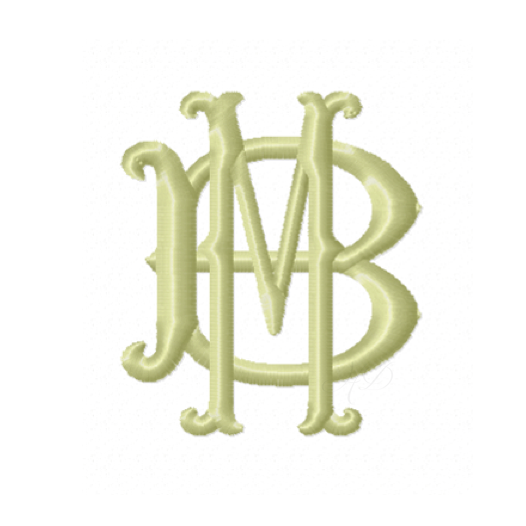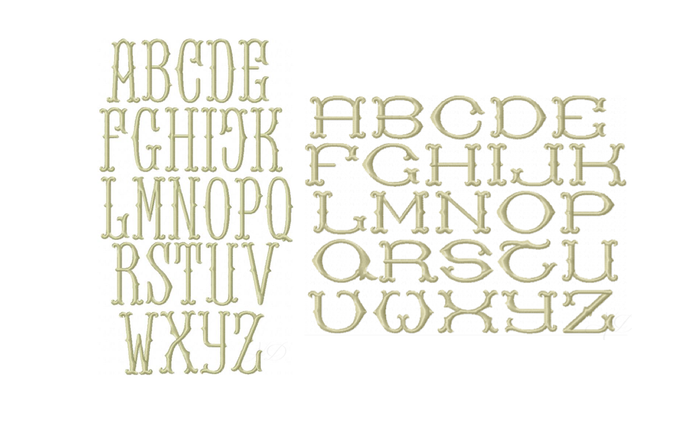
Barrett Satin Stitch Embroidery Font
Unleash your creativity with the Barrett Satin Stitch Embroidery Font, a must-have for crafters and DIY enthusiasts. This comprehensive font package features four sizes, each containing 52 letters, perfect for creating elegant monograms. Choose from 26 taller thin letters and 26 shorter wider letters, tailored to fit any design.